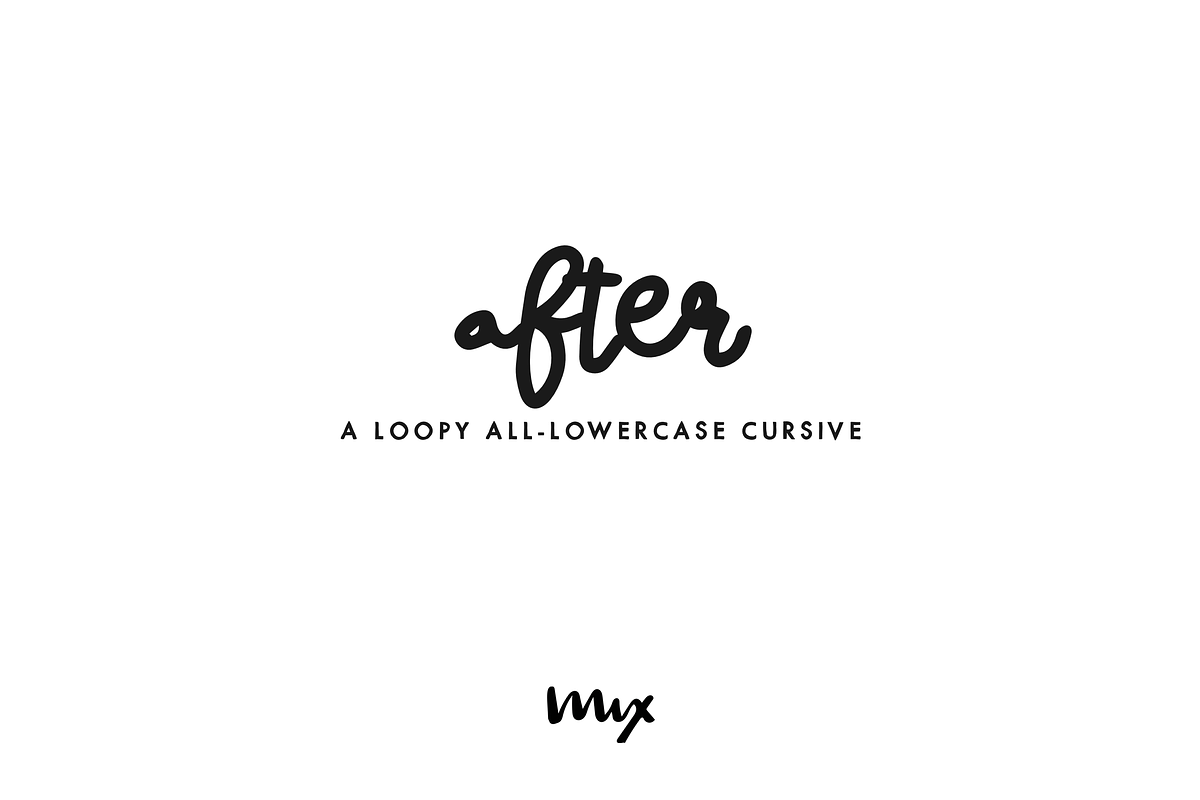
You must purchase this font for commercial use. However, you can download After — A Loopy All-Lowercase Script Font Free Download for testing purposes. After is a playful and whimsical all-lowercase script font with loopy, fluid letterforms that give a personal and informal feel to your designs. Perfect for logos, greeting cards, branding, invitations, and social media content, this font adds a touch of fun and creativity.
Its smooth curves and friendly style make After ideal for projects that need an authentic, hand-crafted touch. Whether you're designing for a creative brand, crafting an event invitation, or working on a casual, laid-back campaign, this font brings a unique, relaxed vibe to your typography.